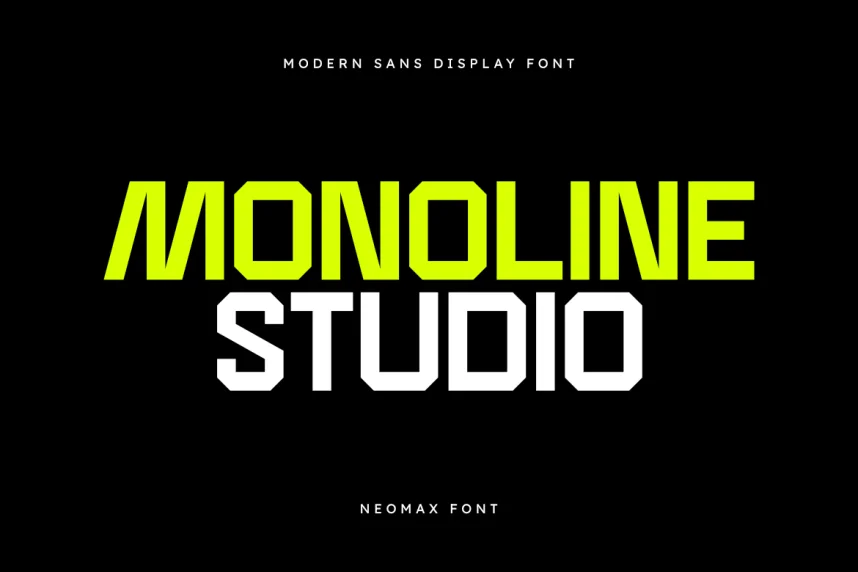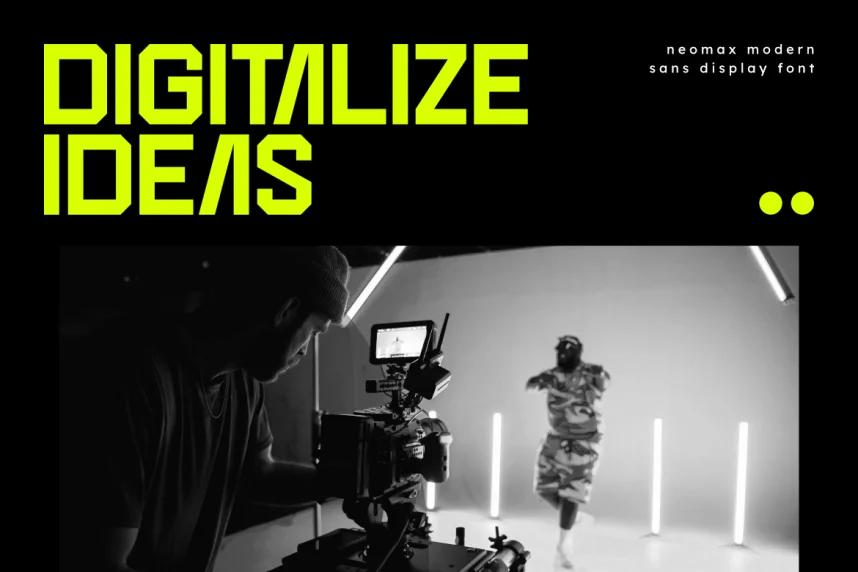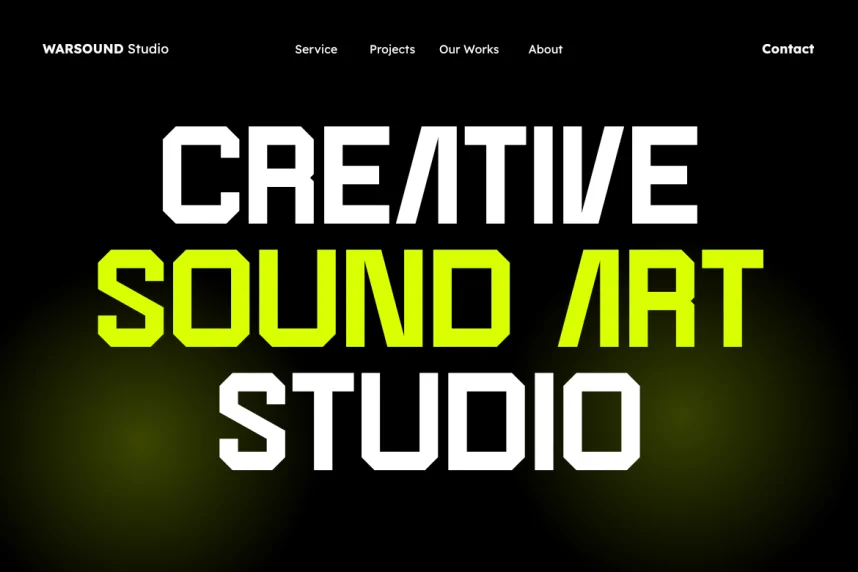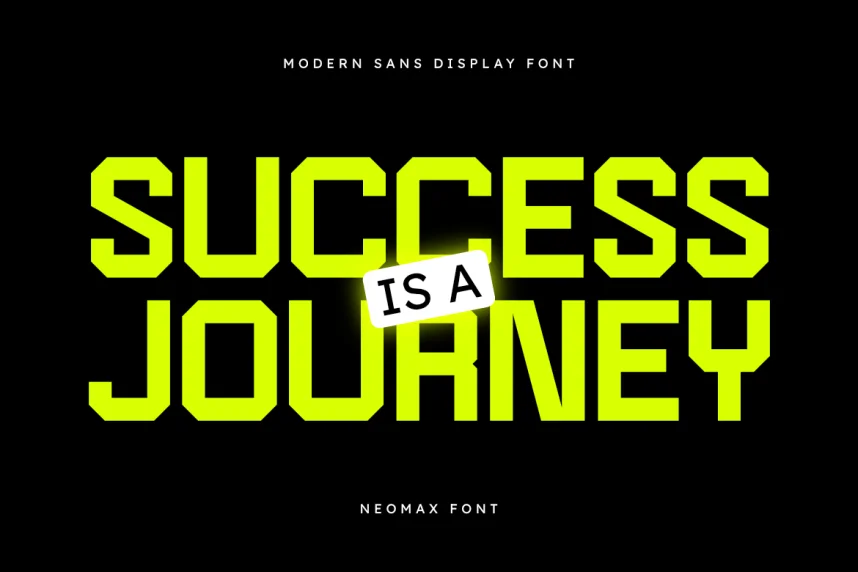
Neomax Font is a modern display typeface designed to improve visual impact while maintaining clarity in logos, headings, and digital media. Its bold design solves readability challenges in high-contrast layouts.
The font features strong geometric letterforms, consistent stroke widths, and slightly condensed spacing. Multiple weights and alternates allow flexibility for dynamic typography, including web headers, marketing graphics, and social media visuals.